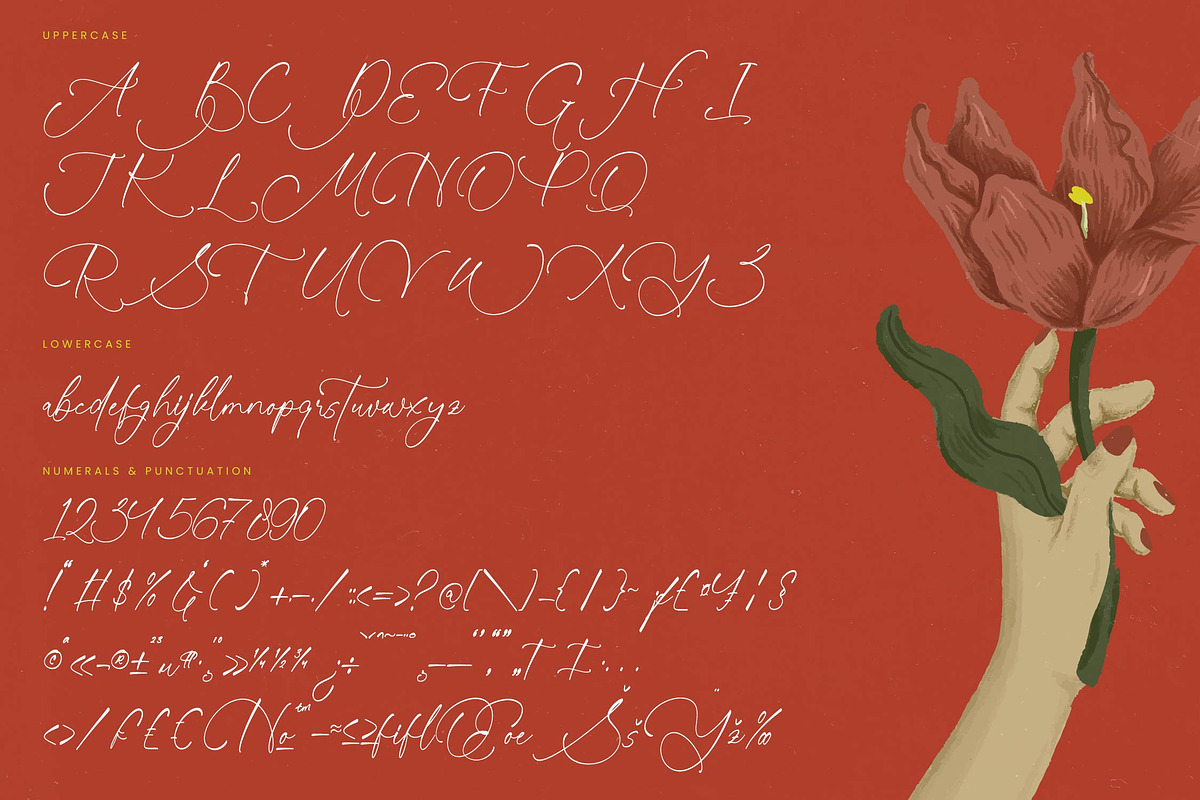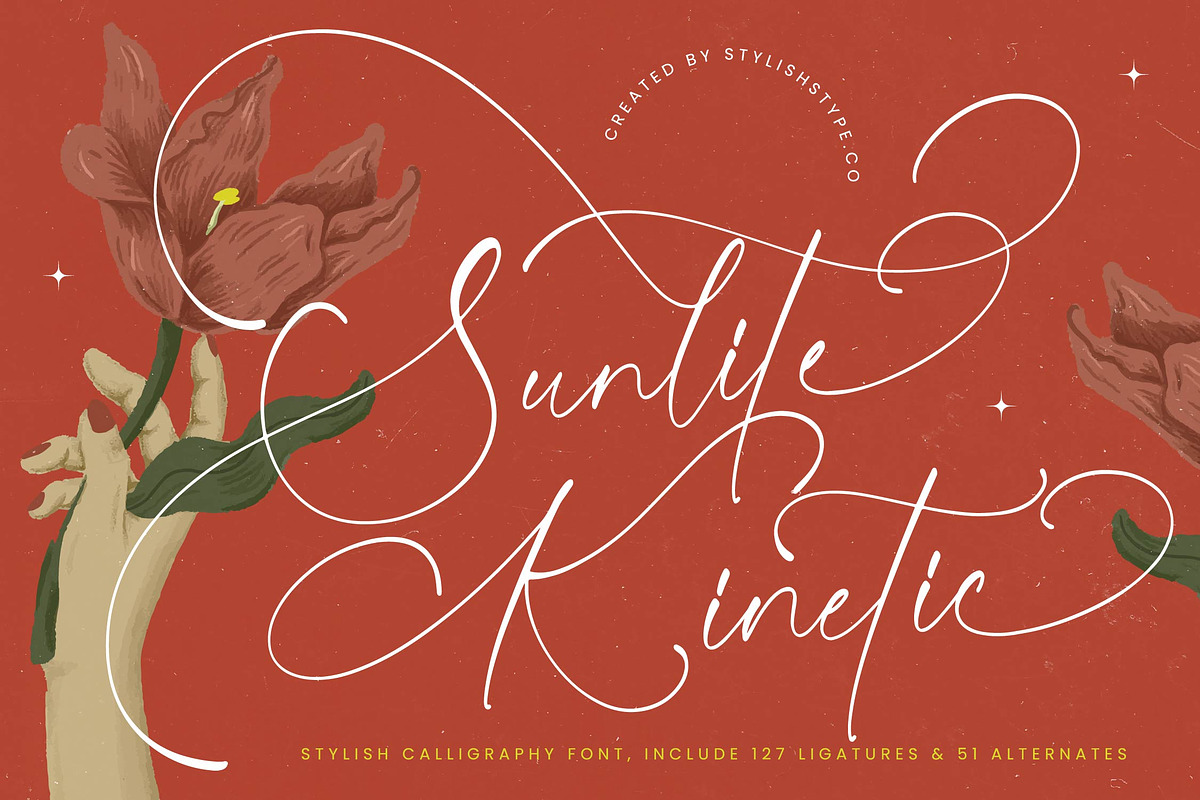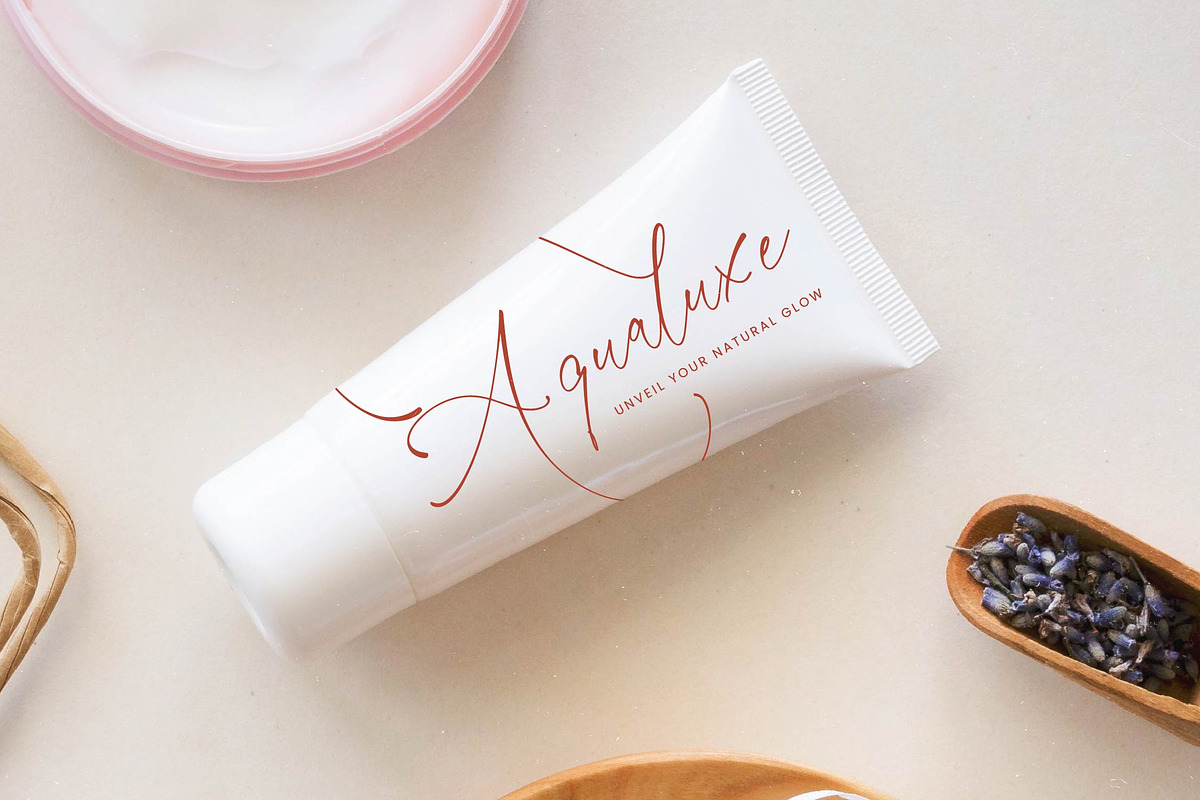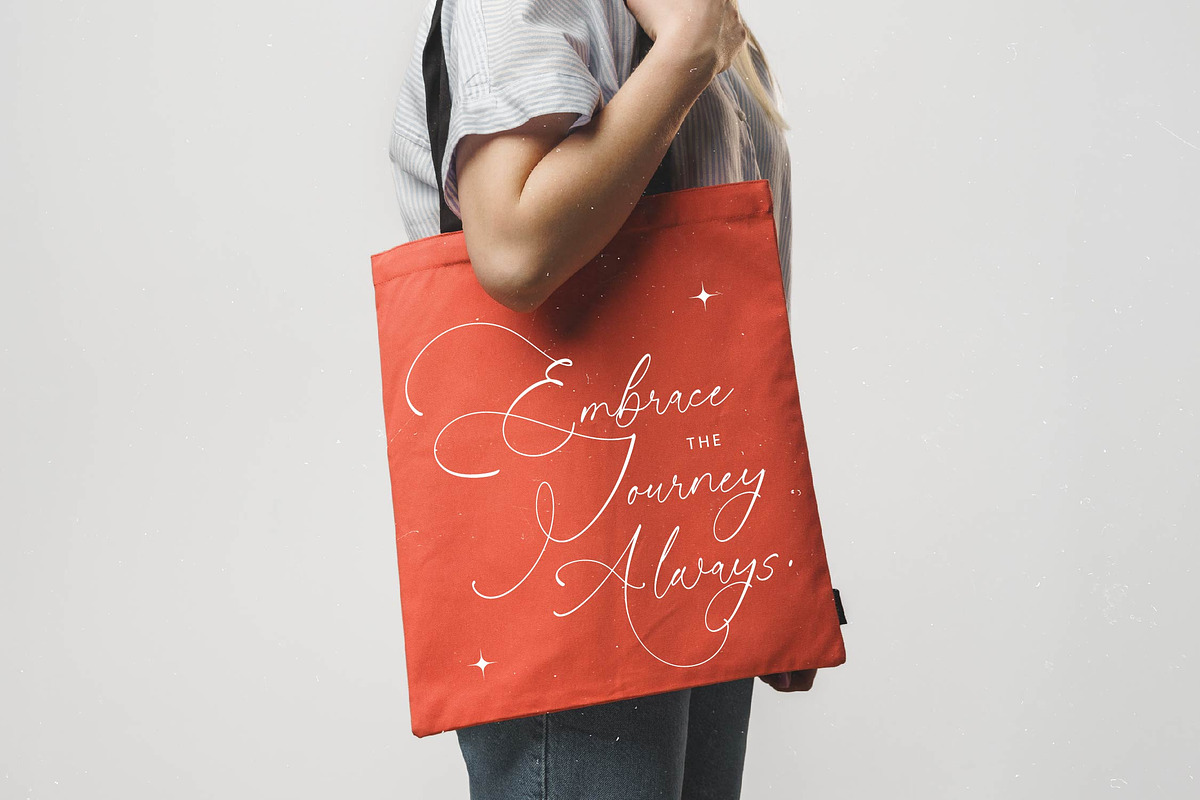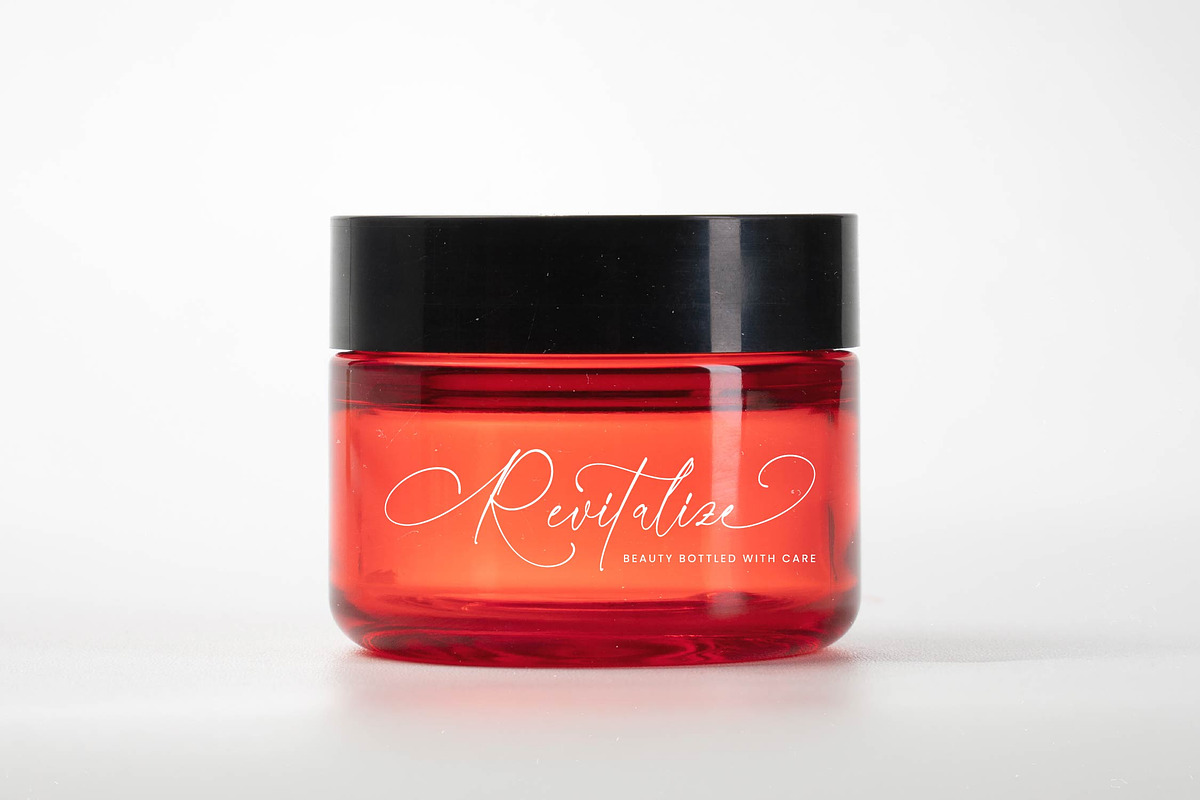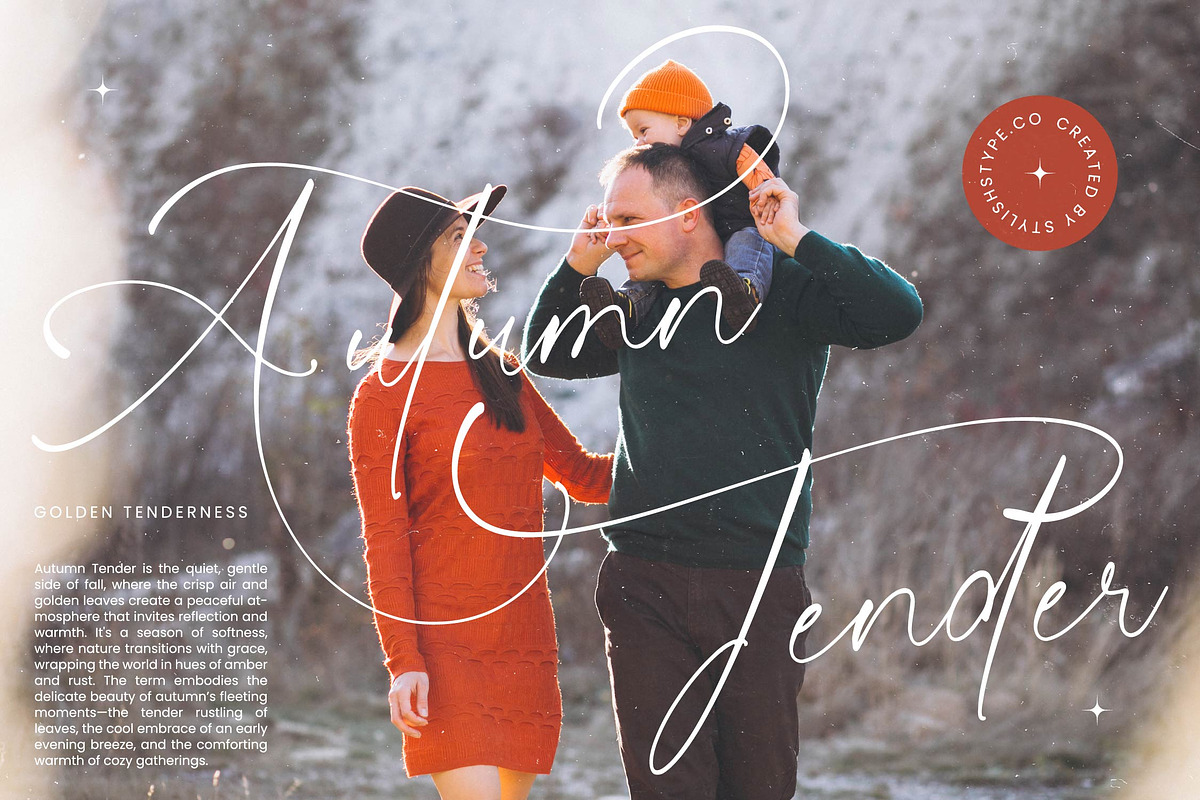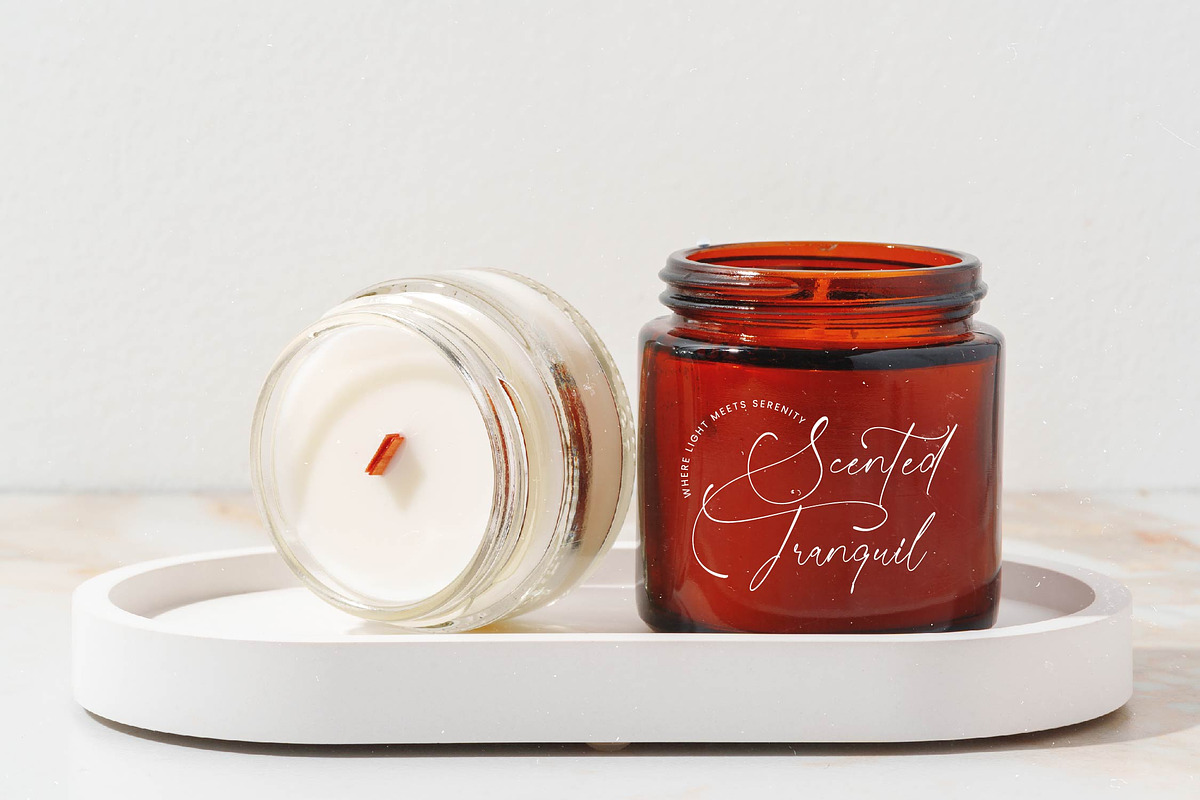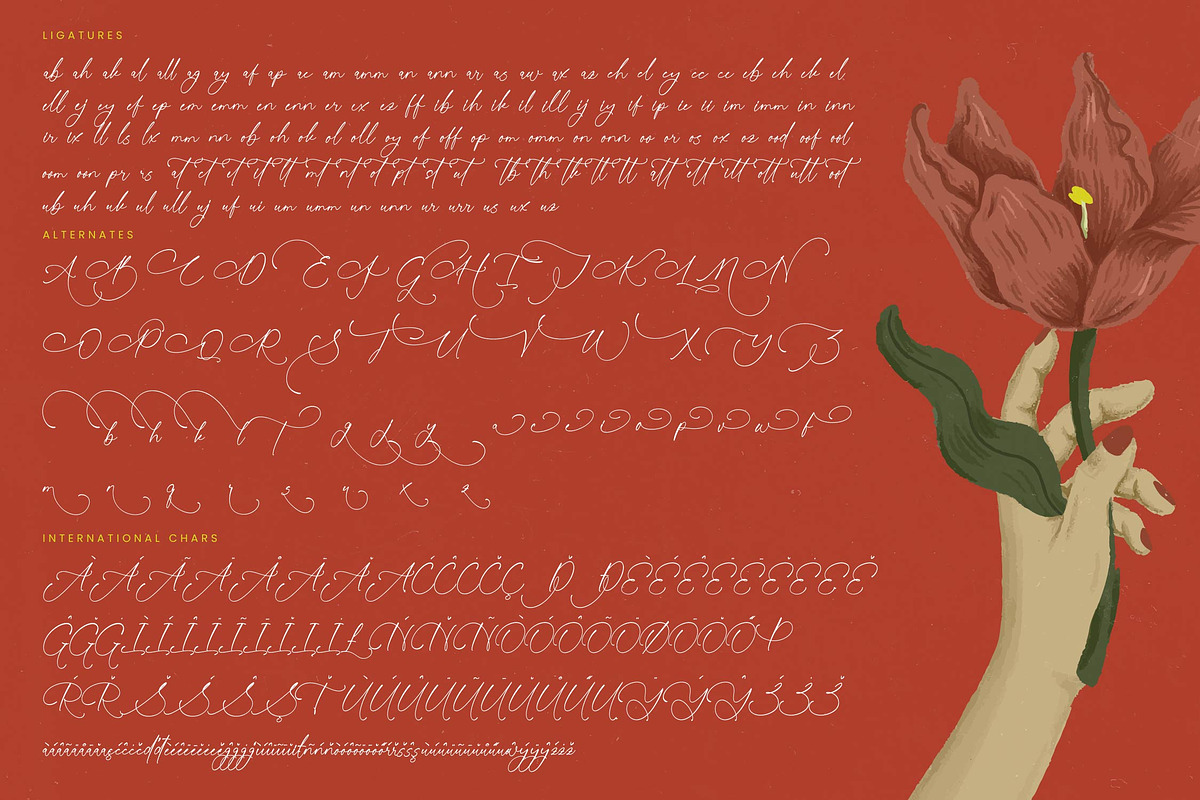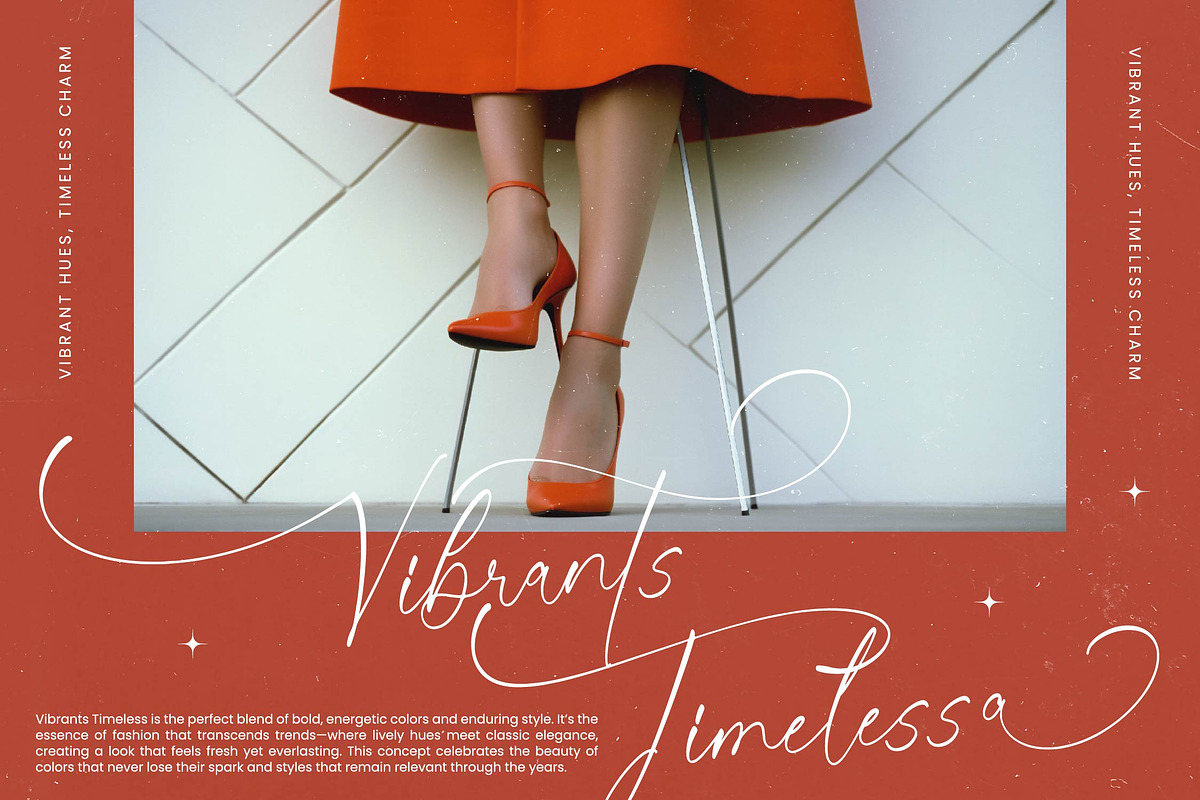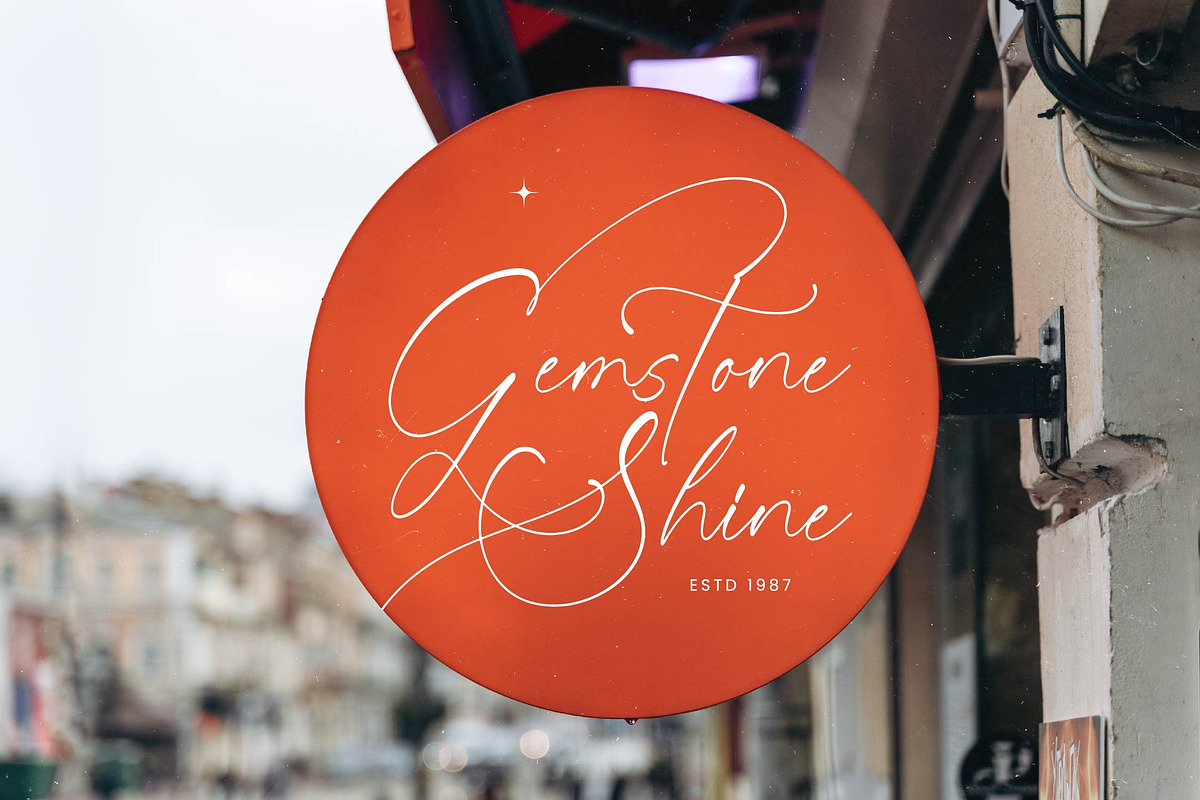
Sunlite Kinetic Stylish Calligraphy
Sunlite Kinetic - Stylish Calligraphy Font , from Stylishtype.Co , Suitable for any projects such as: logos, branding projects, homeware designs, product packaging, mugs, quotes, posters, shopping bags, t-shirts, book covers, name card, invitation cards, greeting cards, label, photography, watermark, special events, and all your other luxury and beautiful projects that need a Luxury Script taste.